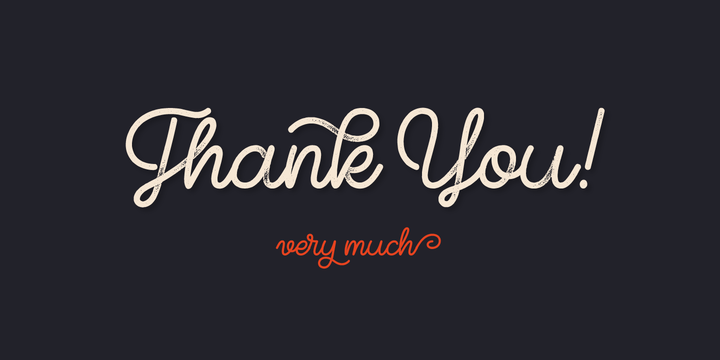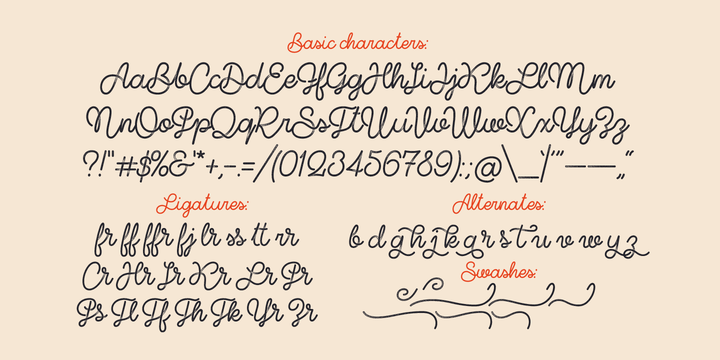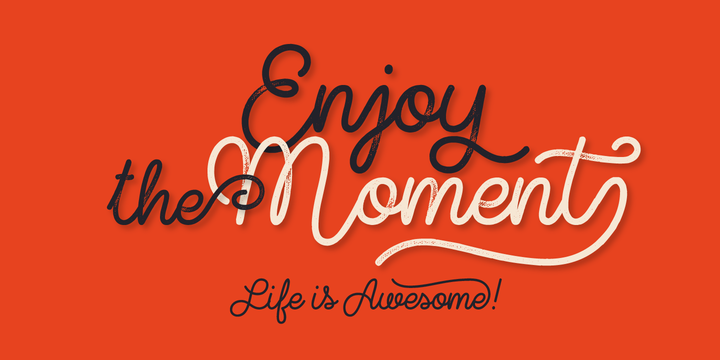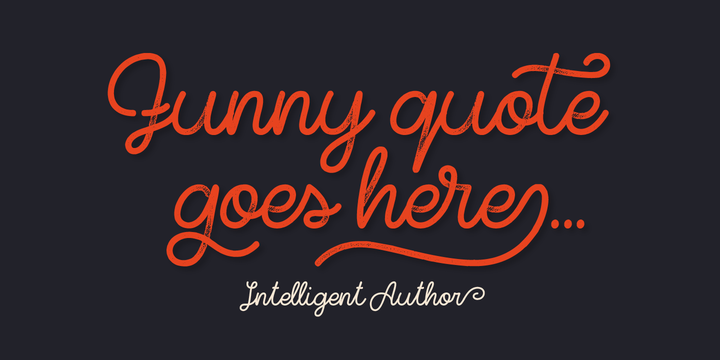
Hello! Introducing a simple line font with textured effect named Shoelaces. It also includes a clean version without texture. OpenType features (ligatures and alternates) helps to make your lettering more interesting. Also there is 8 swashes, that can be found in glyphs tab.